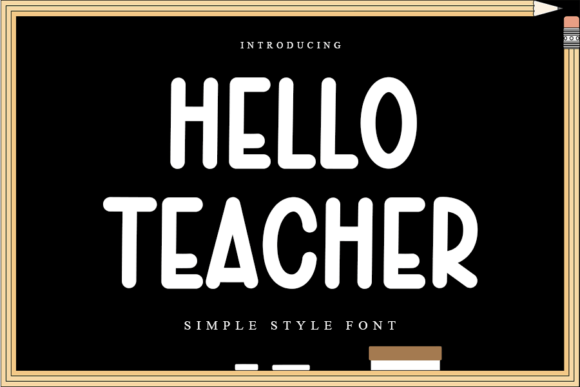
Introducing Hello Teacher Font, your ultimate solution for Font For Handwriting Practice! Crafted with precision and creativity by PAYJHOshop, this cool and modern sans serif font is here to revolutionize your design experience. With its rounded edges and sleek style, Hello Teacher Font is guaranteed to captivate and inspire users looking to buy.
Are you tired of dull and ordinary fonts that fail to make an impact? Say goodbye to them and embrace the extraordinary with Hello Teacher Font. This font is not only visually appealing but also incredibly versatile, making it perfect for a wide range of projects. From crafts to digital designs, presentations to greeting cards, Hello Teacher Font will effortlessly elevate your creations to new heights.
Immerse yourself in the world of handwritten elegance, as Hello Teacher Font adds a touch of sophistication to every stroke. Its unique and eye-catching appeal will instantly draw attention, making your designs stand out from the crowd. Let your creativity flow freely as you explore the endless possibilities offered by this font.
But Hello Teacher Font is more than just a visually stunning typeface. It is a tool that sparks emotions and ignites passion within the hearts of its users. Feel the joy and excitement as you witness the transformation of your projects into masterpieces. Experience the satisfaction of knowing that your work is truly exceptional.